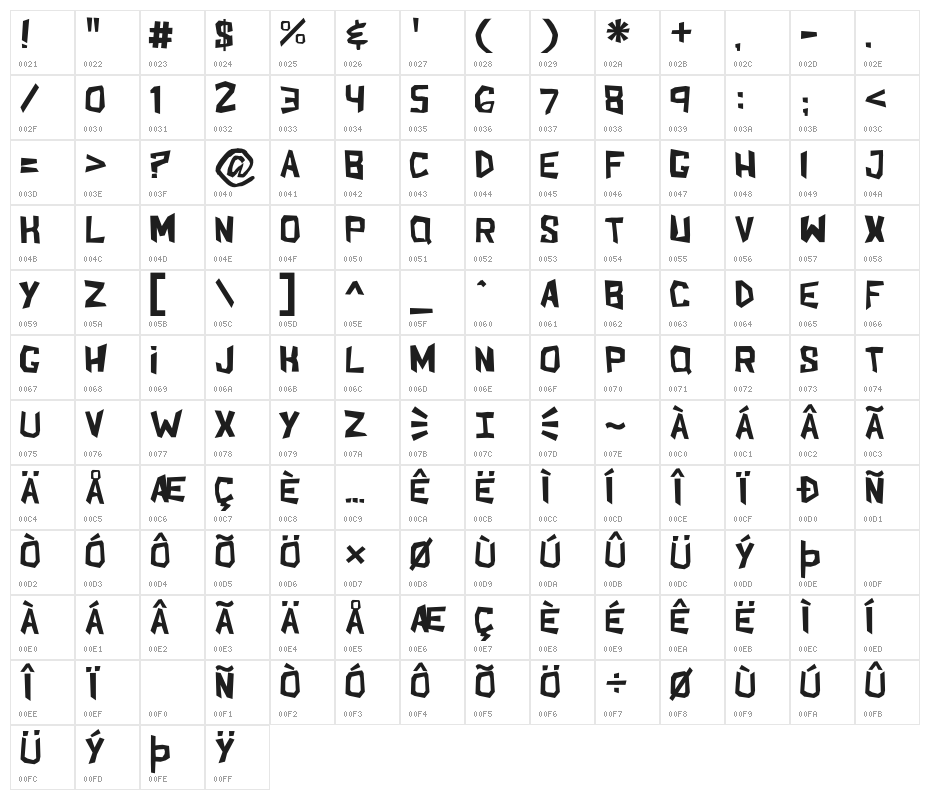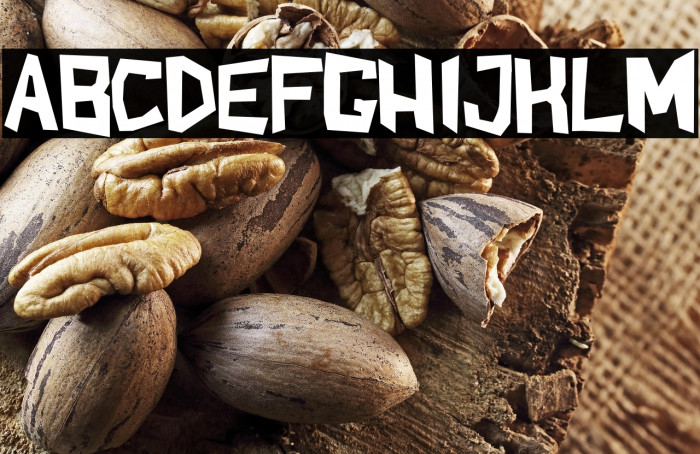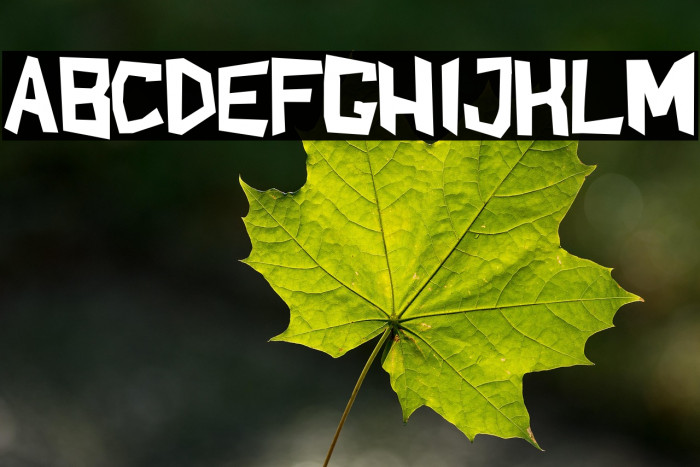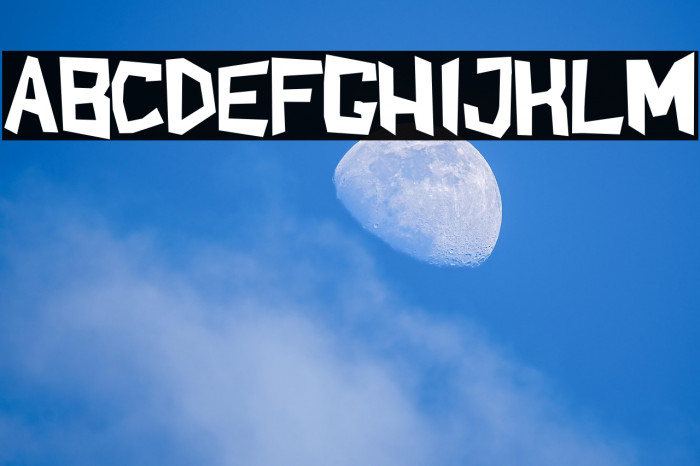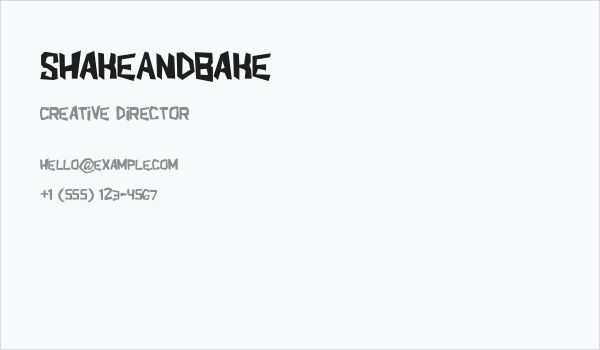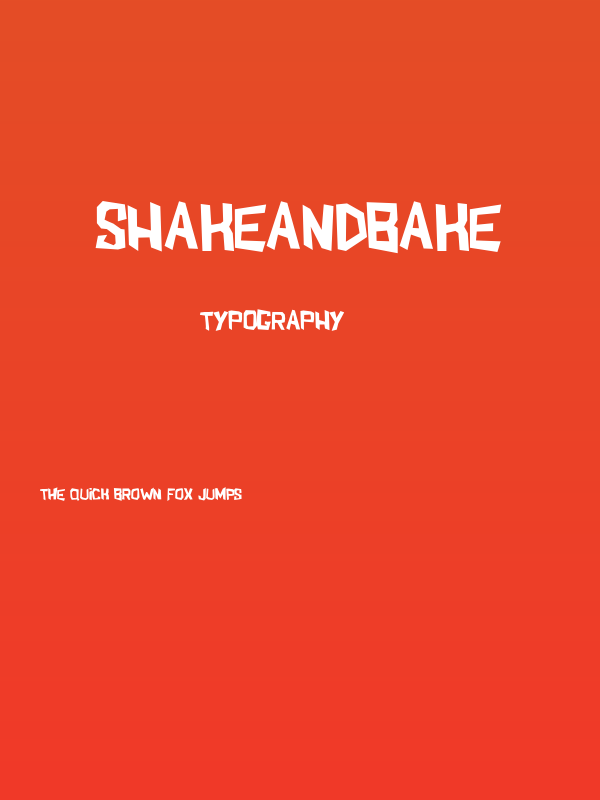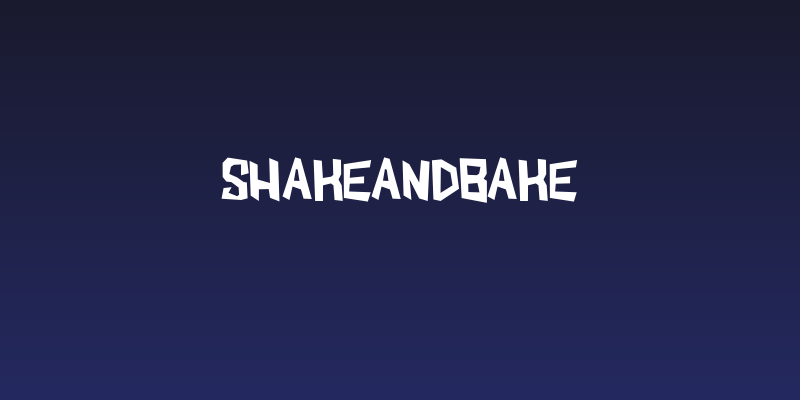
ShakeAndBake Font
ShakeAndBake Description
This font features a bold and dynamic style with a distinctly angular and geometric design. The characters are crafted with sharp edges and irregular shapes, giving it a unique, edgy appearance. The uppercase and lowercase letters maintain a consistent style, with each character exhibiting a slightly distorted form that adds to its energetic and rebellious vibe. The numbers and special characters follow the same design principles, ensuring a cohesive look across all elements. This font is perfect for projects that require a bold statement and a modern, unconventional aesthetic.
Proposed ProjectsIdeal for music album covers, skateboarding brands, streetwear designs, and event posters.